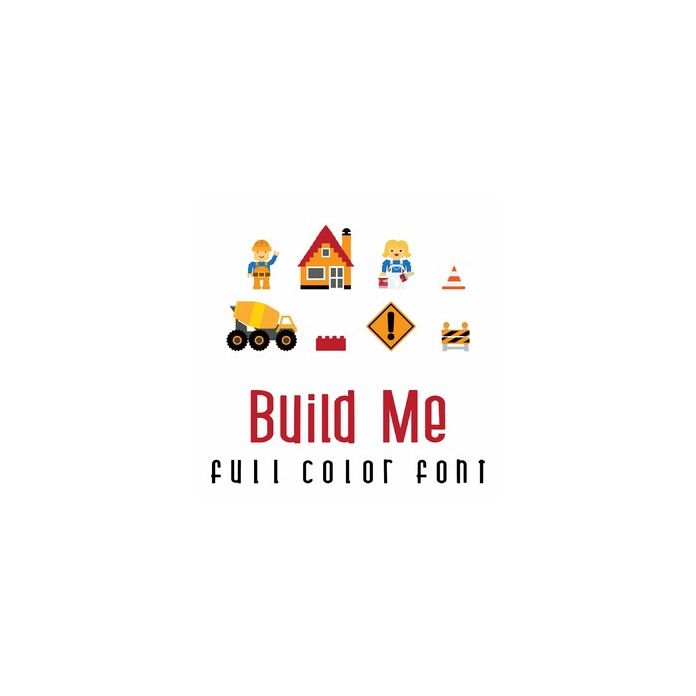
This adorable full-color doodlebat font features 26 construction-style images and building blocks. Perfect for cards, crafts, gifts, decor, scrapbook pages, planner stickers, and more!